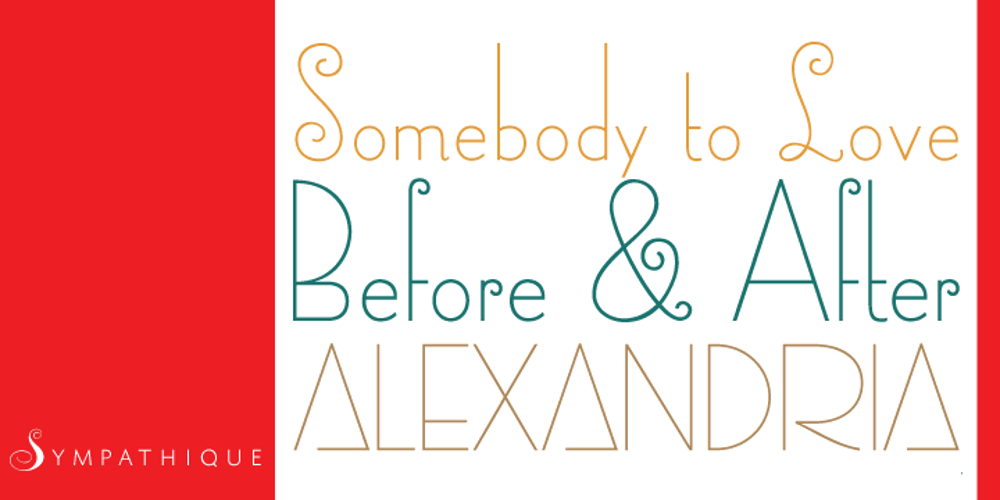
Sympathique
Sympathique font
Sympathique Font Family was designed by Rebecca Alaccari and published by Canada Type. Sympathique contains 1 styles and family package options. One can never be too tall or too thin, the old adage goes. Sympathique is quite fashionably both. Rooted in two separate film face ideas called Hairstreak (English) and Mossman (American), Sympathique takes art deco to its ultimate and inevitable high fashion goals. Breezy and cool, Sympathique combines mostly androgynous majuscules with distinctly feminine minuscules to reach one of the most elegantly expressive voices a poster can ever have. Sympathique comes in all popular font formats and a very extended character set. Plenty of alternates are included. Sympathique Pro, the OpenType version, combines all three fonts into a single one, tied together with programmed features for intelligent substitutions that come in quite handy in software that supports advanced typography. Note: Due to the delicate shapes of this font, we recommend using it only in display sizes of 30 pt and higher.